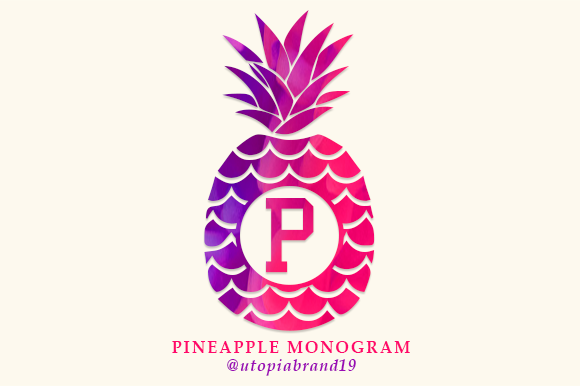
Are you ready to add a touch of charm and distinction to your creative projects? Look no further than Pineapple Monogram, a decorative font that exudes elegance and personality. This font is a true gem for designers and creatives seeking a distinctive touch in their work.
With its graceful curves and playful details, Pineapple Monogram enchants the senses, inviting you to embark on a journey of visual delight. Its authentic feel adds a touch of nostalgia and warmth, making your designs timeless and memorable.
Imagine the possibilities:
- Design captivating logos and branding elements that leave a lasting impression, ensuring your brand stands out from the crowd.
- Craft enchanting invitations, greeting cards, and wedding stationery that reflect your unique style and personality, making every occasion extra special.
- Create eye-catching social media posts and graphics that pop off the screen, engaging your audience and leaving them wanting more.
- Unleash your creativity in designing posters, flyers, and brochures that demand attention, ensuring your message is conveyed with impact and flair.
Pineapple Monogram is incredibly versatile, capable of transforming ordinary designs into extraordinary masterpieces. Whether you're a seasoned designer or just starting, this font is your creative ally, ready to elevate your projects to new heights of beauty and sophistication.